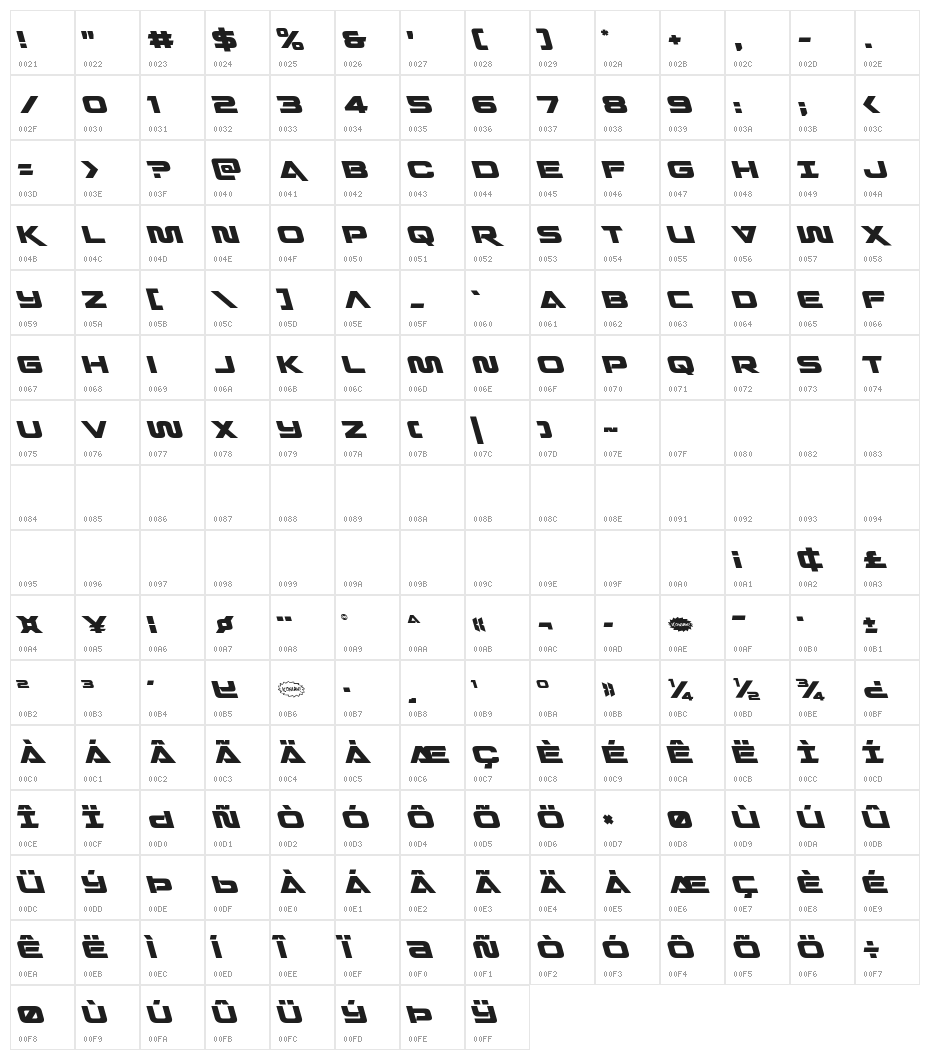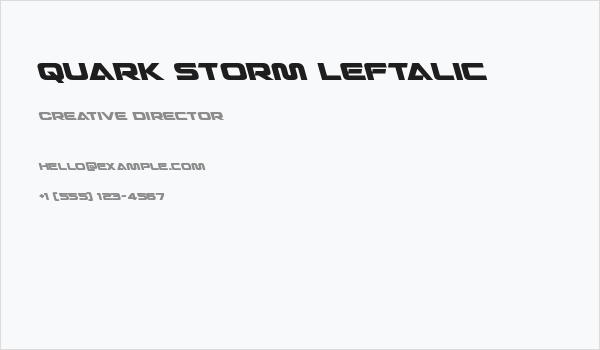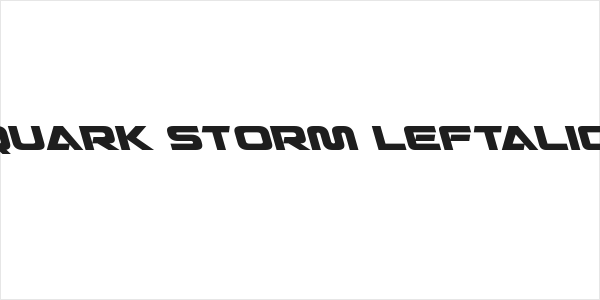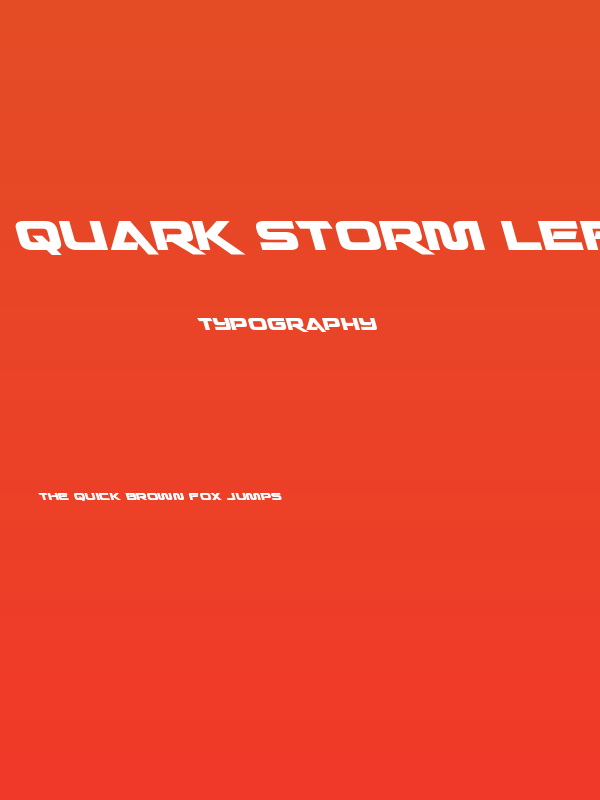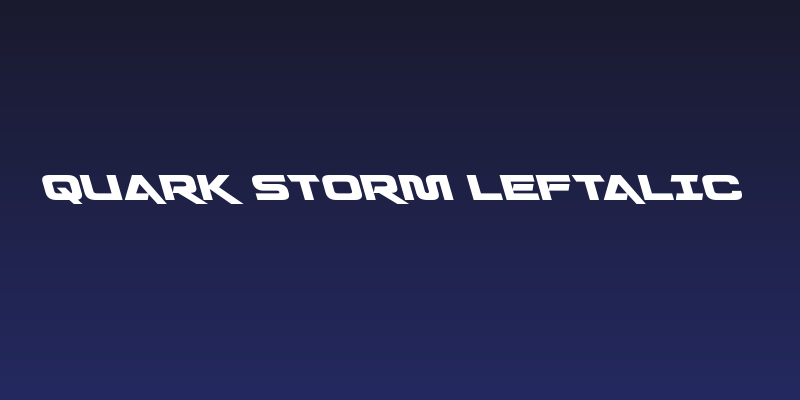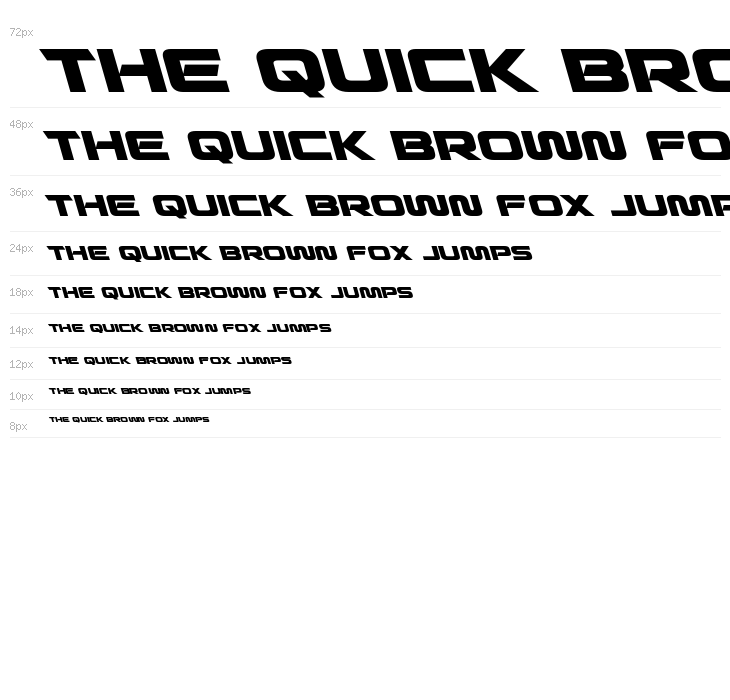
Quark Storm Leftalic Font
Quark Storm Leftalic Description
This font features a bold, futuristic design with a distinct slant to the left, giving it a dynamic and forward-moving appearance. The characters are wide and robust, with angular cuts and sharp edges that create a sense of speed and modernity. The uppercase and lowercase letters maintain a consistent style, with the lowercase being slightly smaller but equally bold. The numerals are clear and strong, matching the overall aesthetic. Special characters are designed to fit seamlessly with the rest of the font, maintaining the same bold and angular style.
| Proposed Projects | Ideal for sci-fi themed projects, technology branding, video game titles, and dynamic posters. |